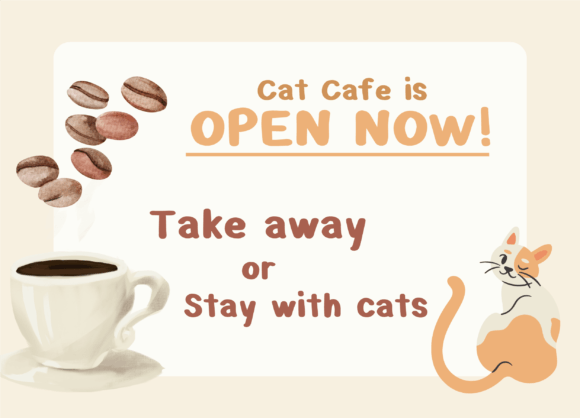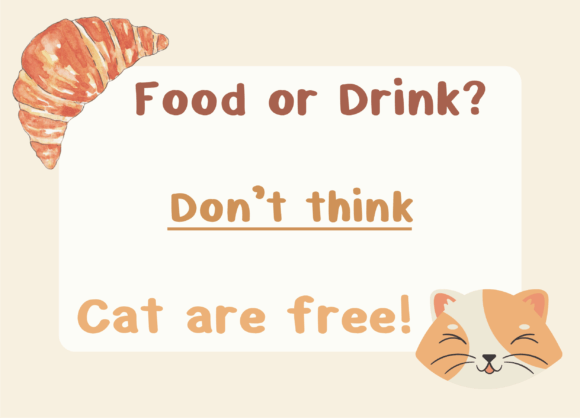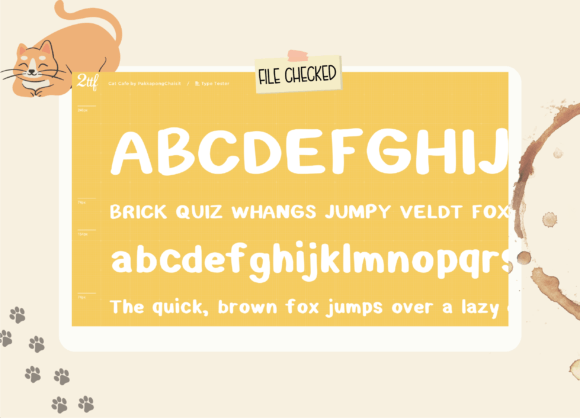
Discover the Whimsy of Cat Cafe Font
As you sit in your cozy home office, sipping a warm cup of coffee and staring at your computer screen, you can’t help but feel a sense of creative block. You’re stuck on a design project that requires a font that captures the essence of a cat cafe – a place where warmth, comfort, and playful energy come together in perfect harmony. Suddenly, your eyes land on a font that embodies the very spirit of a cat cafe: Cat Cafe Font.
Designed to evoke the dynamic strokes of a brush and the playful essence of feline companionship, Cat Cafe Font is the perfect choice for designers looking to add a touch of whimsy and charm to their projects. With its thick, expressive lines and bold presence, this font conveys a sense of comfort, relaxation, and delightful interactions, making it a valuable addition to any designer’s toolkit.
Cat Cafe Font Key Features
- Font Family: Cat Cafe Font is a unique, handwritten font family designed to evoke a sense of playfulness and whimsy.
- Character Set: The font family includes a comprehensive set of characters, including uppercase and lowercase letters, numbers, and punctuation marks.
- Size: The font family includes multiple weights, ranging from 200 to 900, allowing designers to achieve a wide range of styles and effects.
- Unique Characteristics: The Cat Cafe Font features a distinctive, hand-drawn aesthetic with subtle imperfections and variations in line width, giving it a unique and authentic feel.
Designer Review: Cat Cafe Font
Overall, I think Cat Cafe Font is a charming and quirky font that can add a playful touch to various designs. Here are some things that work well: ✨
- Unique and recognizable design: Cat Cafe Font has a distinctive look that immediately stands out and can help create a memorable brand identity.
- Fun and lighthearted feel: The font’s playful design makes it perfect for cat-themed designs, children’s products, or any project that needs a lighthearted touch.
- Good legibility: Despite its unique design, Cat Cafe Font is still easy to read, making it suitable for body text and other large blocks of text.
However, there are also some limitations: ⚠️
- May not be suitable for formal designs: Cat Cafe Font’s playful design may not be the best choice for formal or professional projects, such as business reports or serious news articles.
- Limited language support: Cat Cafe Font may not have full support for languages with non-Latin scripts, which could limit its use in multilingual designs.
- May not be suitable for small text sizes: While Cat Cafe Font is legible, it may become difficult to read when used in small text sizes or at low resolutions.
In conclusion, Cat Cafe Font is a fun and unique font that can add a playful touch to various designs, but it may not be the best choice for every project. With some limitations in mind, it can be a great addition to a designer’s toolkit.
Here are some tips for getting the most out of the Cat Cafe Font:
- Use the font in conjunction with high-quality images of cats to create a cohesive design.
- Use the font in a variety of contexts, such as posters, social media graphics, and website headers.
Here are some common use cases for the Cat Cafe Font:
- Posters and flyers for cat cafes or cat-related events.
- Use the font for the main headline, “Whisker Wonderland”.
- Combine with a bold, modern font for the party details, such as date, time, and location.
- Add cat illustrations or graphics to complement the font.
- Use a pastel color scheme to create a soft, whimsical atmosphere.
- Include a cute cat icon or graphic to break up the text.
- Consider adding a custom illustration of a cat in a party hat or holding a “Happy Birthday” sign.
3 Creative Project Ideas Using Cat Cafe Font
Project 1: Whisker Wonderland Invitation
Design a whimsical invitation for a cat lover’s birthday party or cat adoption event. The Cat Cafe Font is purr-fect for adding a playful touch to the design.
How to use Cat Cafe Font:
Project 2: Purrfectly Cute Social Media Graphics
Create eye-catching social media graphics for cat-related content, such as cat adoption promotions or cat-themed memes.
How to use Cat Cafe Font: